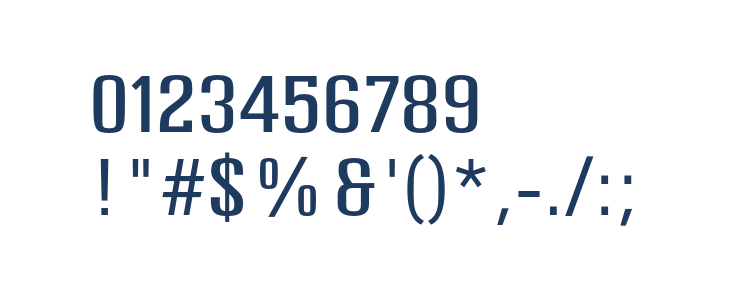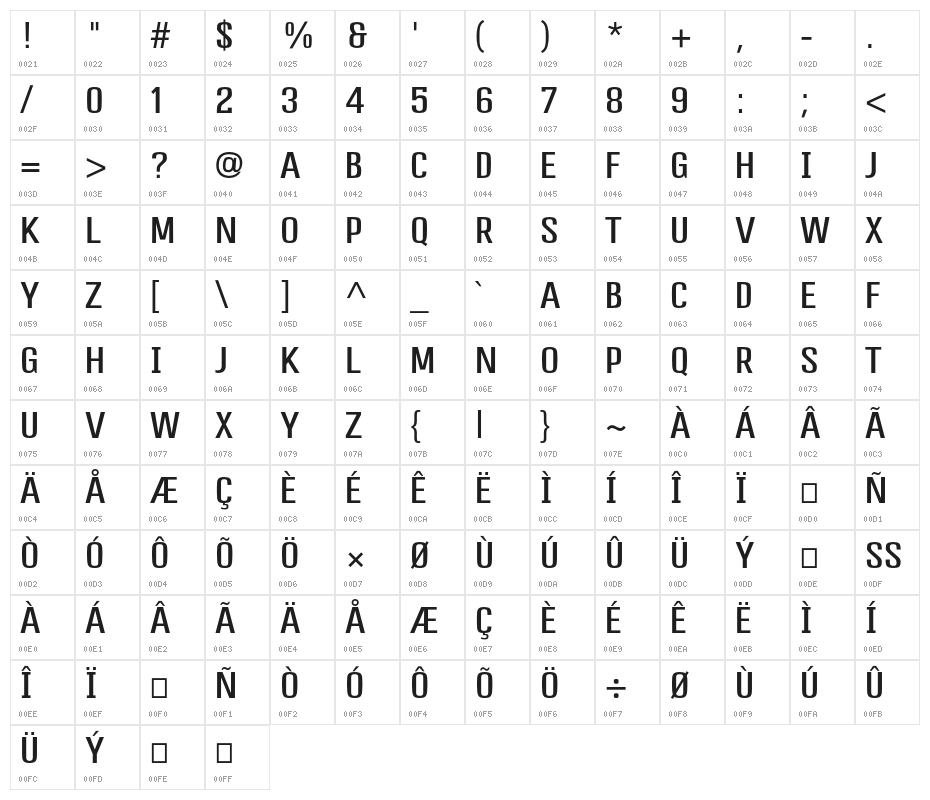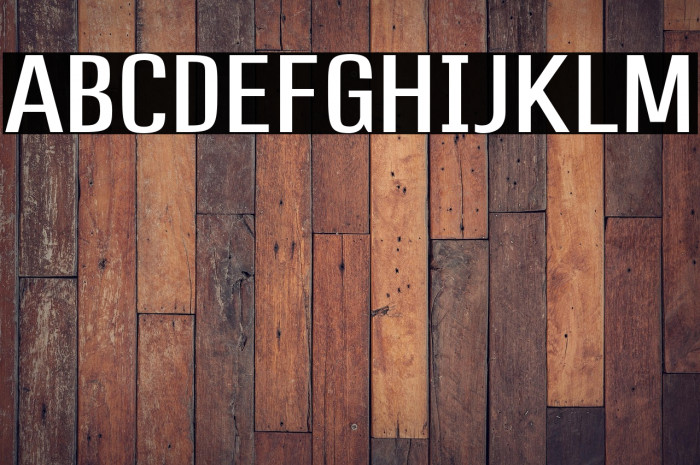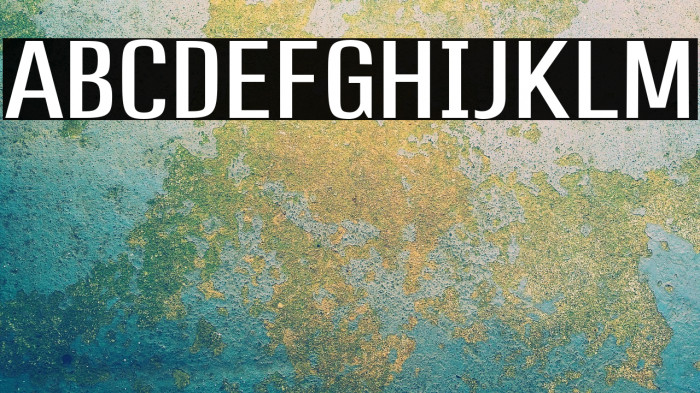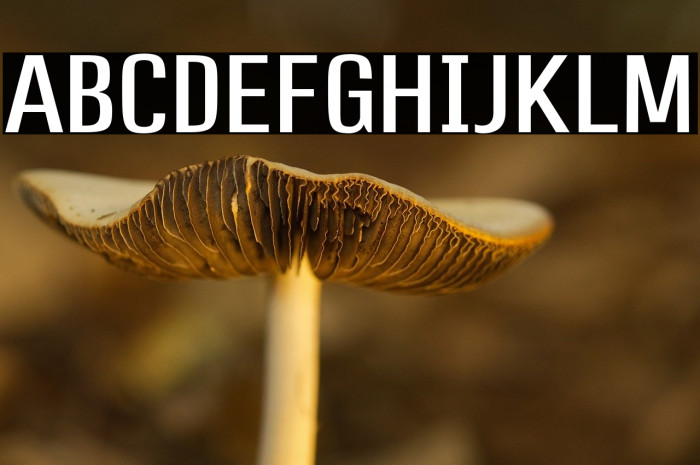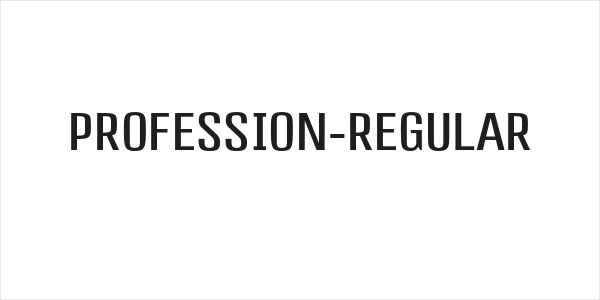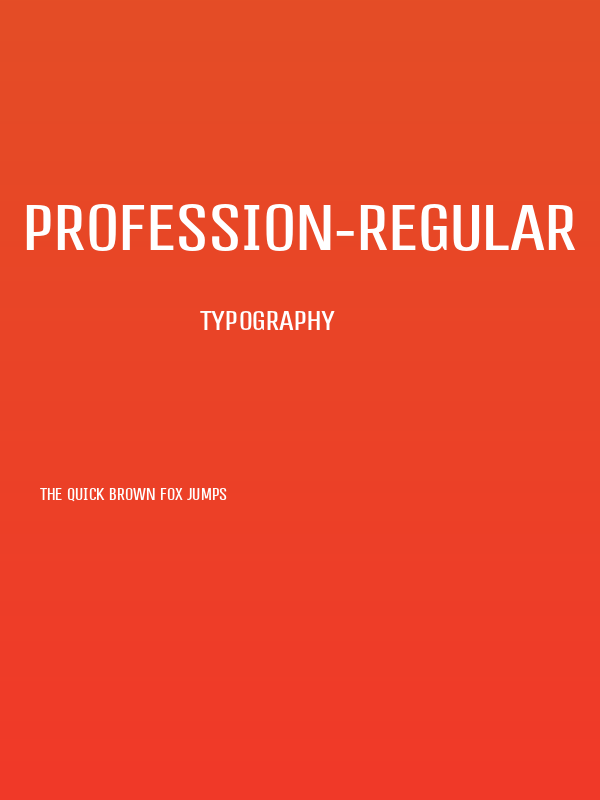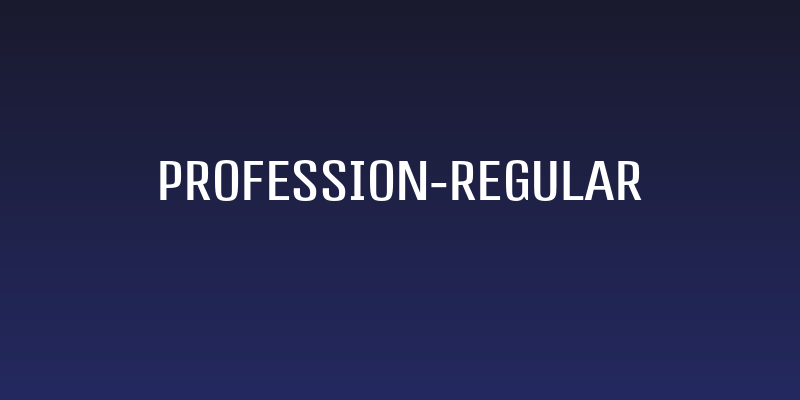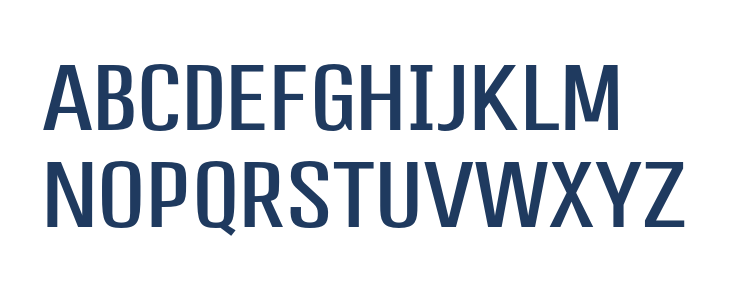
Profession-Regular Font
Profession-Regular Description
This font features a clean, modern design with a strong emphasis on readability. The characters are well-defined with a consistent stroke width, giving it a uniform appearance. The uppercase and lowercase letters maintain a balanced proportion, while the numerals are clear and easy to distinguish. Special characters are designed to complement the overall style, ensuring versatility across various applications. The font's simplicity and clarity make it suitable for both digital and print media, providing a professional look without unnecessary embellishments.
ContrastLow
Overall StyleModern
Use CaseHeadlines, Body text, Logos
Proposed ProjectsIdeal for corporate branding, editorial design, web interfaces, and signage.